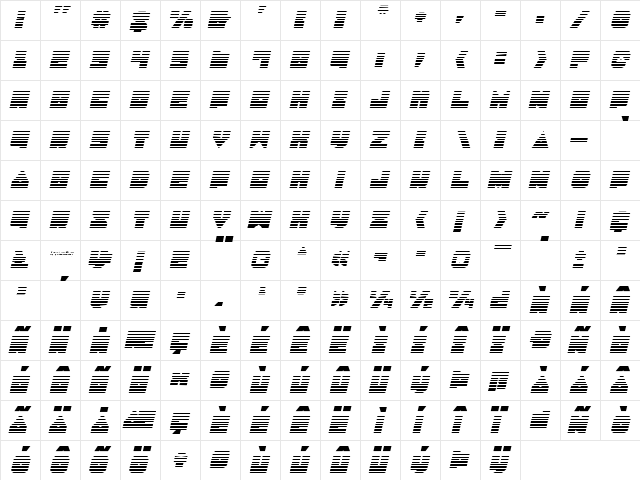
Lobo Tommy Gradient Italic Italic
Design Context for Lobo Tommy Gradient Italic Typeface
Lobo Tommy Gradient Italic is a composed and adaptable typeface that performs quietly and consistently across a wide range of design contexts. Its italic angle brings a sense of urgency and motion to the letterforms.
Pro Tip: Try Lobo Tommy Gradient Italic for annotation and caption copy alongside an upright companion — the contrast in angle creates a dynamic but ordered typographic system.